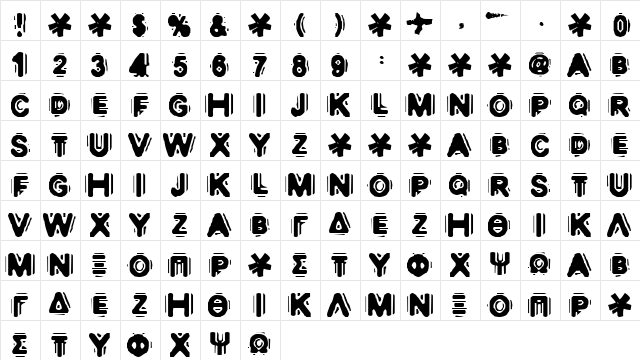
DISCOBOX Regular
| Version | Displays greek characters as well. |
Design Context for DISCOBOX Typeface
DISCOBOX is a composed and adaptable typeface that performs quietly and consistently across a wide range of design contexts.